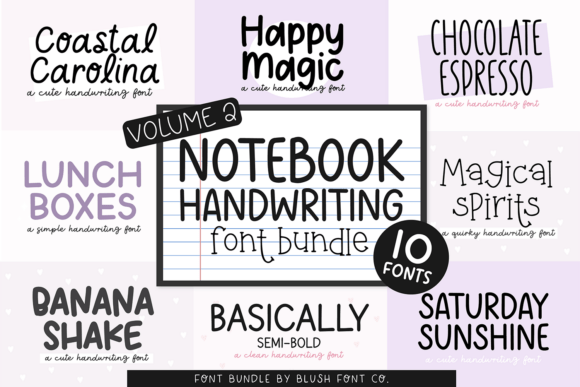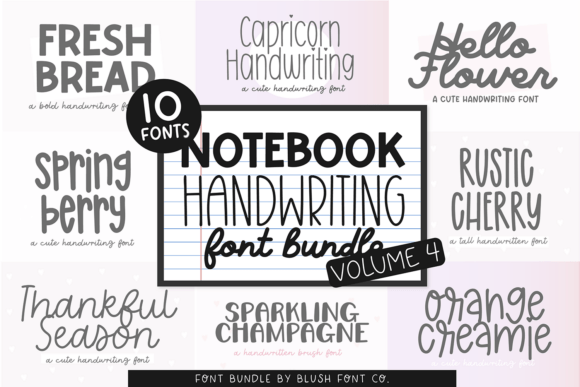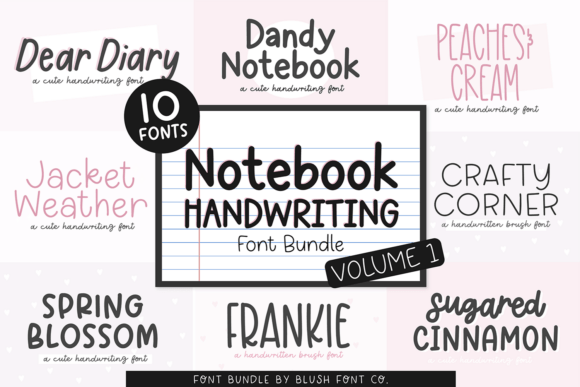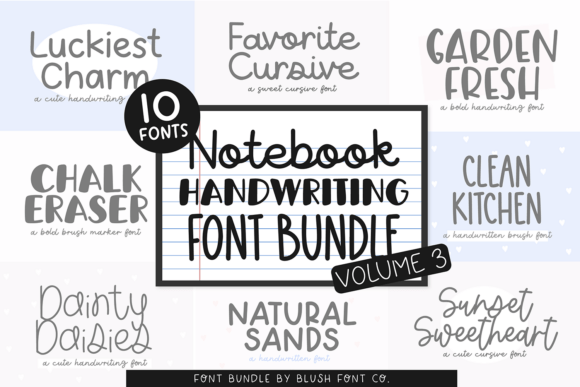
Introduction to Mega Notebook Handwriting Bundle Font Font
Fonts play a crucial role in design, and the Mega Notebook Handwriting Bundle Font font is a typeface that brings both character and versatility to any project. Whether you’re working on a branding project, a website, or a print design, the Mega Notebook Handwriting Bundle Font font offers a unique style that can elevate your work.
Indulge in the charm of βMega Font Bundle,β an eclectic mix of 40 handwriting-inspired fonts.
Excellently crafted for digital planners and applications like GoodNotes, this font package resonates with a feminine allure and a touch of whimsy These fonts channel handwritten chic, amplified by an enticing array of cursive and script fonts.
Key Features of Mega Notebook Handwriting Bundle Font Font
Why Choose Mega Notebook Handwriting Bundle Font Font?
The Mega Notebook Handwriting Bundle Font font is more than just a typeface β it’s a design tool that helps you communicate your message with style and clarity. Its unique character set and versatile design make it suitable for a wide range of applications, from elegant invitations to bold headlines.
With its carefully crafted letterforms and balanced proportions, the Mega Notebook Handwriting Bundle Font font ensures readability and visual appeal across all mediums.
What makes Mega Notebook Handwriting Bundle Font font special?
The Mega Notebook Handwriting Bundle Font font stands out with its unique design, exceptional readability, and versatility across various design applications.